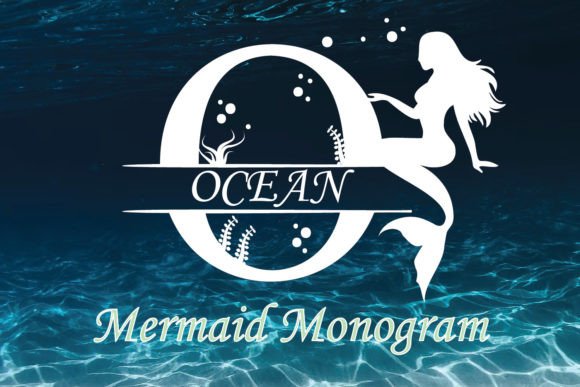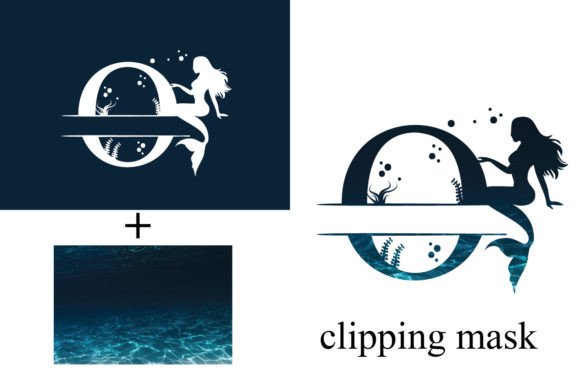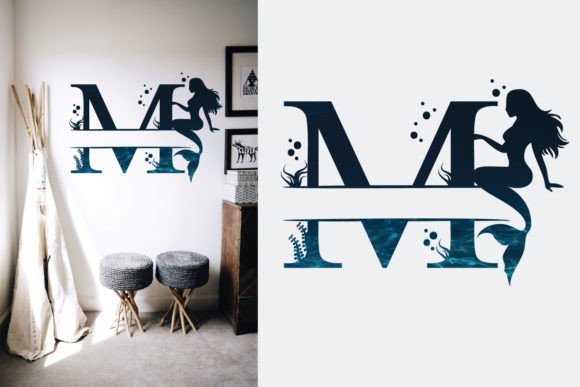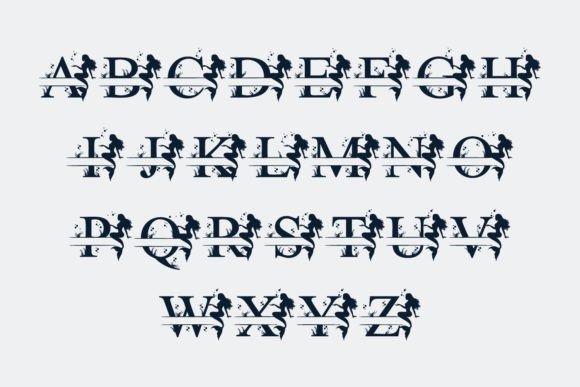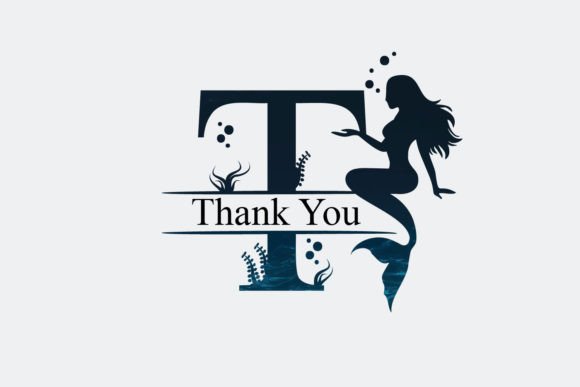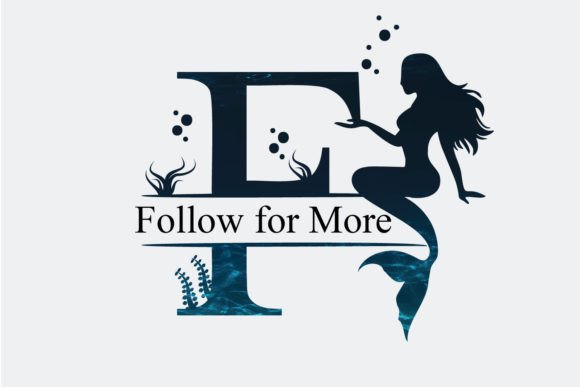
Introduction to Ocean Mermaid Monogram Font Font
Fonts play a crucial role in design, and the Ocean Mermaid Monogram Font font is a typeface that brings both character and versatility to any project. Whether you’re working on a branding project, a website, or a print design, the Ocean Mermaid Monogram Font font offers a unique style that can elevate your work.
Ocean Mermaid Monogram is an elegant decorative font, featuring lovely ornaments.
Fall in love with its authentic feel and use it to create gorgeous stationary art, eye-catching social media posts, and cute greeting cards .
Key Features of Ocean Mermaid Monogram Font Font
Why Choose Ocean Mermaid Monogram Font Font?
The Ocean Mermaid Monogram Font font is more than just a typeface – it’s a design tool that helps you communicate your message with style and clarity. Its unique character set and versatile design make it suitable for a wide range of applications, from elegant invitations to bold headlines.
With its carefully crafted letterforms and balanced proportions, the Ocean Mermaid Monogram Font font ensures readability and visual appeal across all mediums.
What makes Ocean Mermaid Monogram Font font special?
The Ocean Mermaid Monogram Font font stands out with its unique design, exceptional readability, and versatility across various design applications.